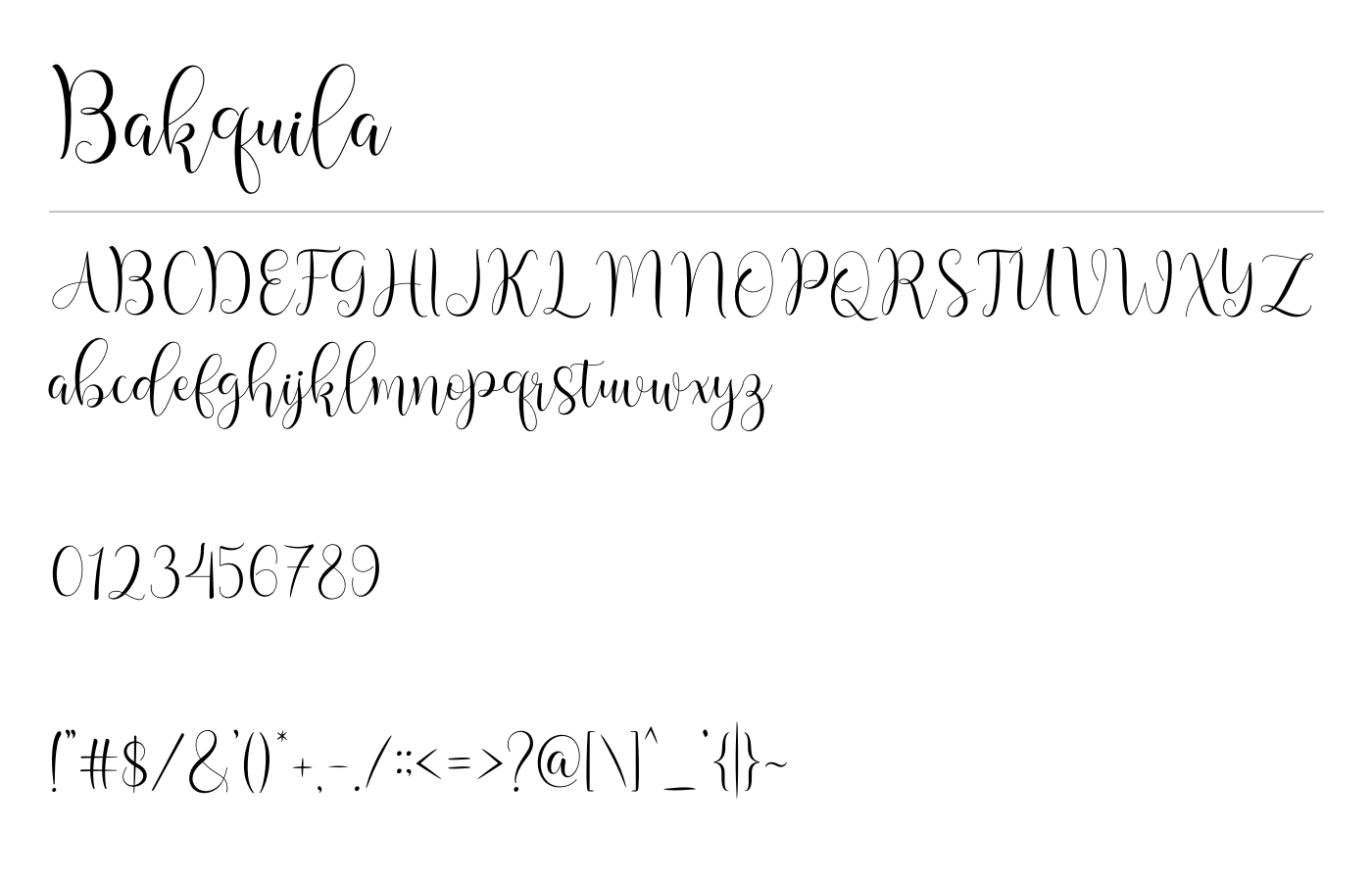
Bakquila is an elegant, slender script font characterized by its delicate, flowing strokes and graceful swashes, imparting a refined, sophisticated feel. Its high-contrast thin lines and stylized curves make it perfect for luxury branding, wedding invitations, and decorative headlines where a touch of femininity and flair is desired. This font works best in settings that call for a charming, artistic touch, adding a sense of beauty and refinement to any design.
Bakquila Font
About Bakquila Font
| Font family | Bakquila Font |